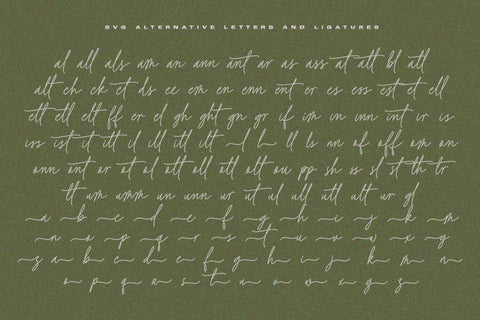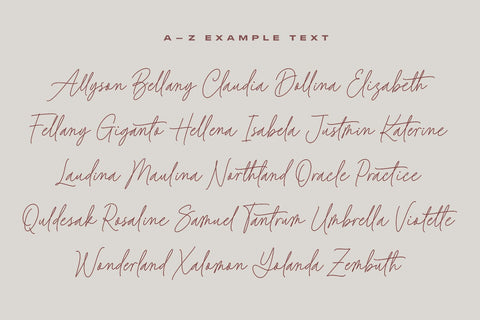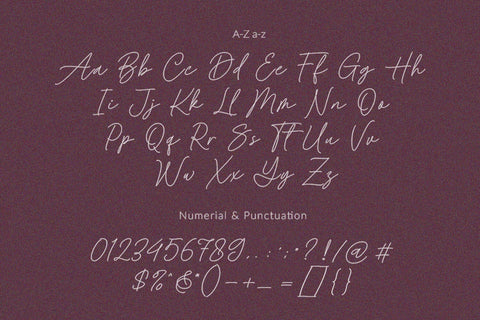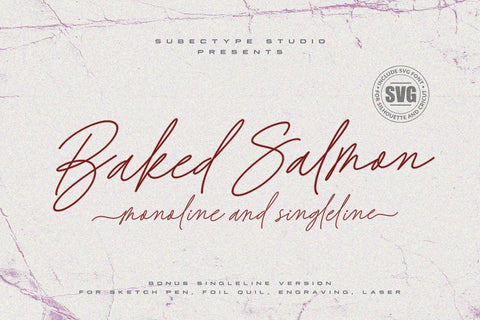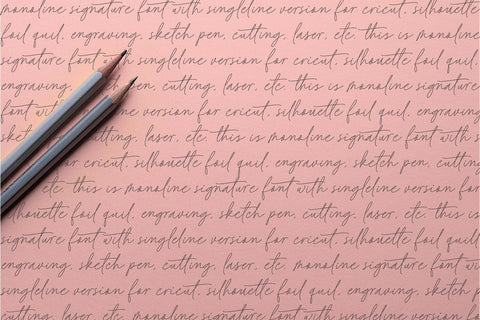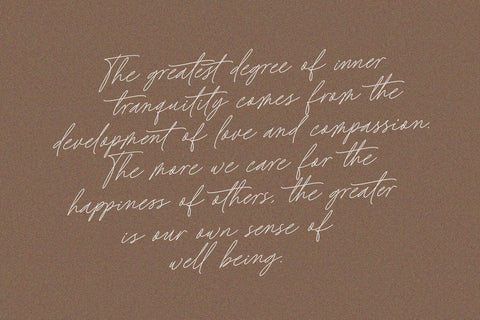
Baked Salmon - Monoline and Singleline font
Baked Salmon is monoline signature font with singleline version. These meticulously crafted fonts capture the charm of handwritten and signature style lettering. Perfect for wedding invitations, love letters, and other romantic projects. These versatile fonts add a touch of sophistication and warmth. Creating a memorable visual experience that speaks the language of love.
Fall in love with its incredibly distinct and timeless style and use it to create spectacular designs!
Baked Salmon Singleline version